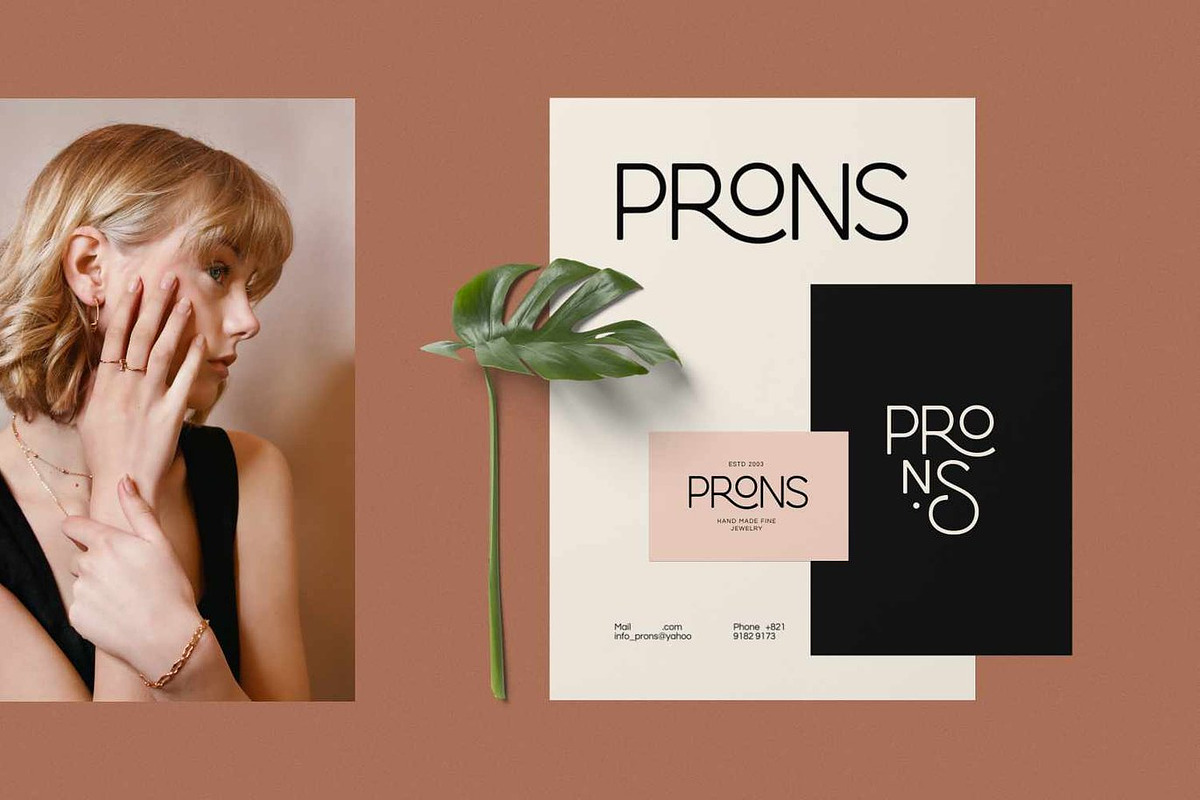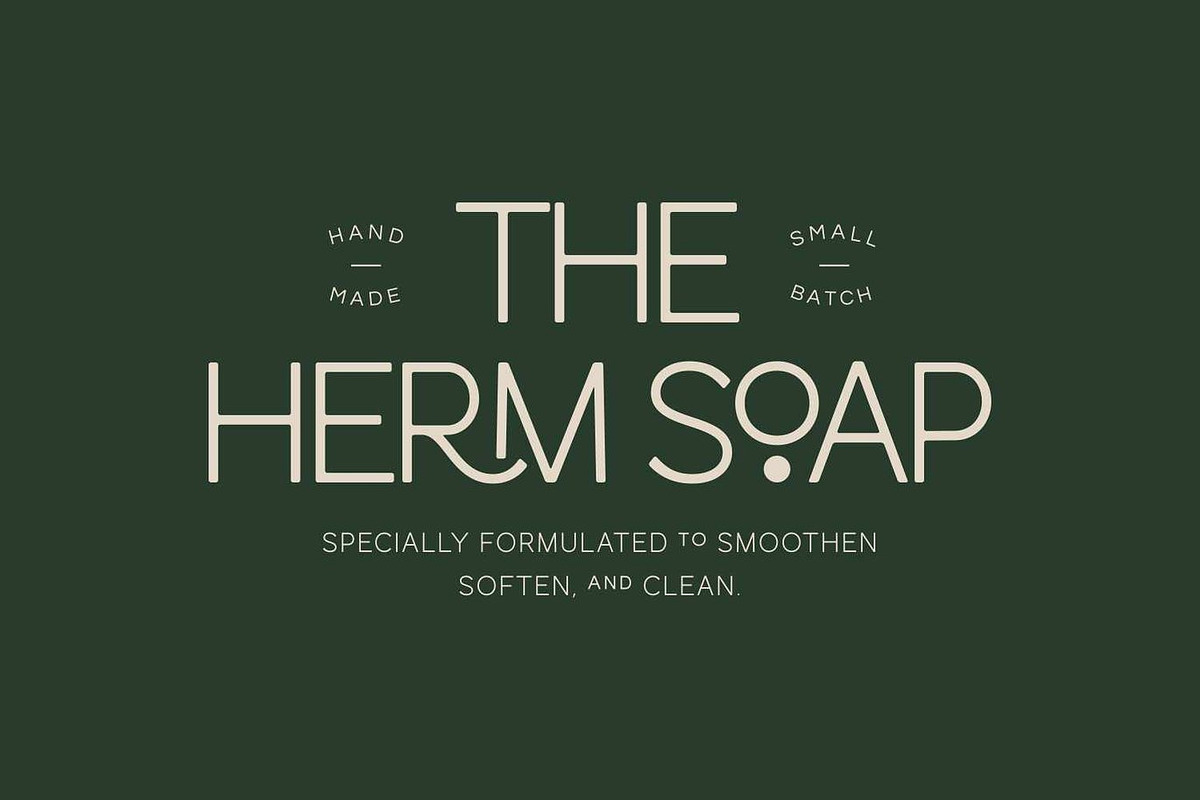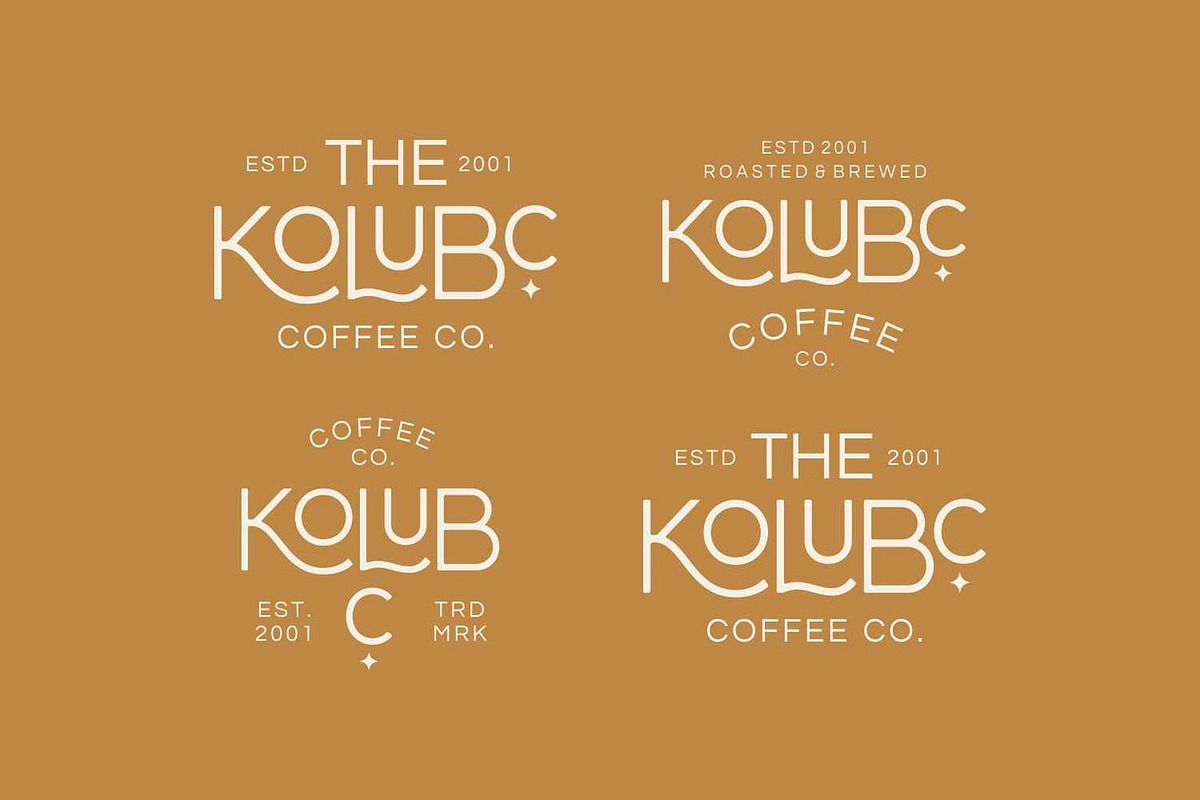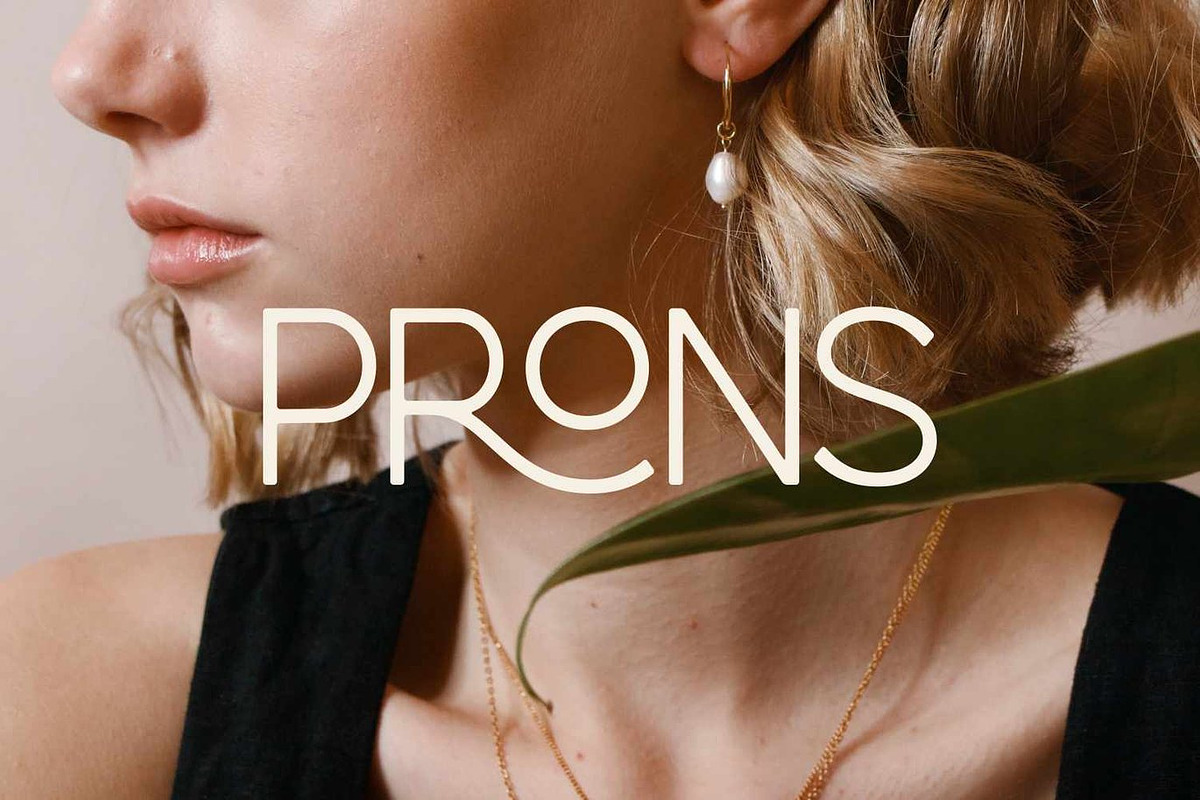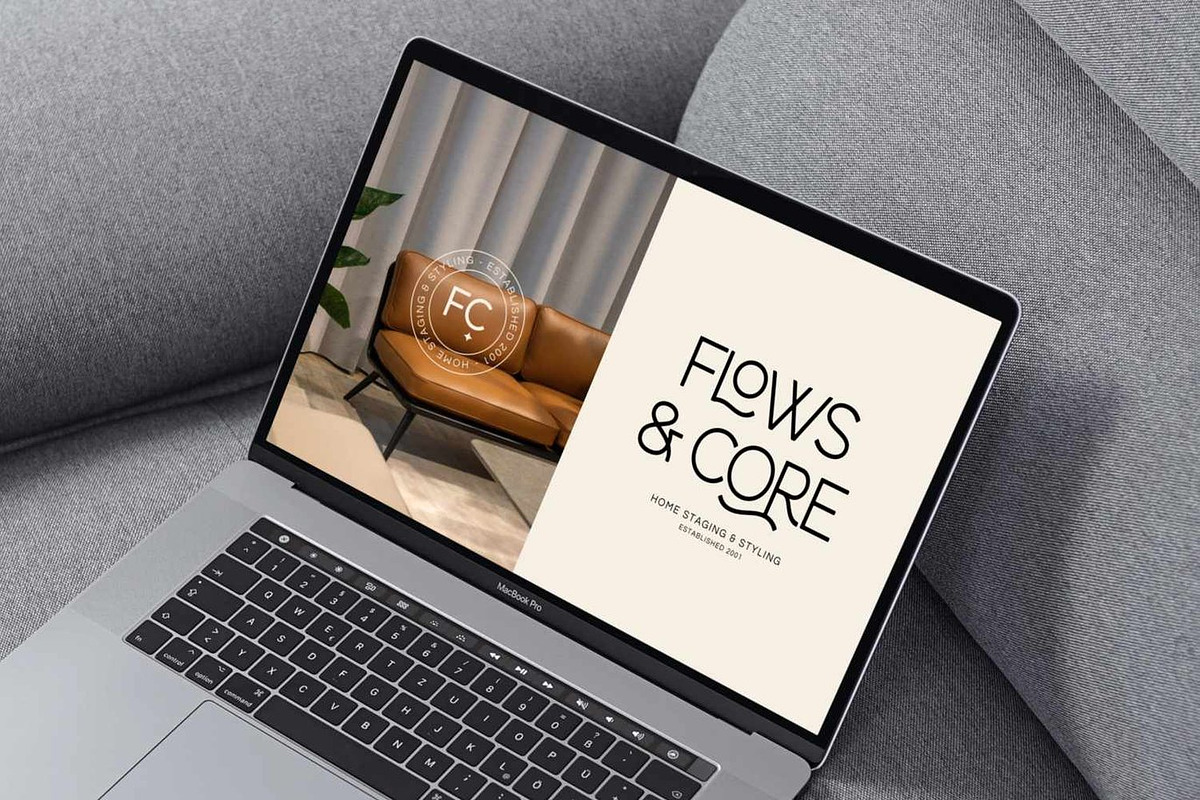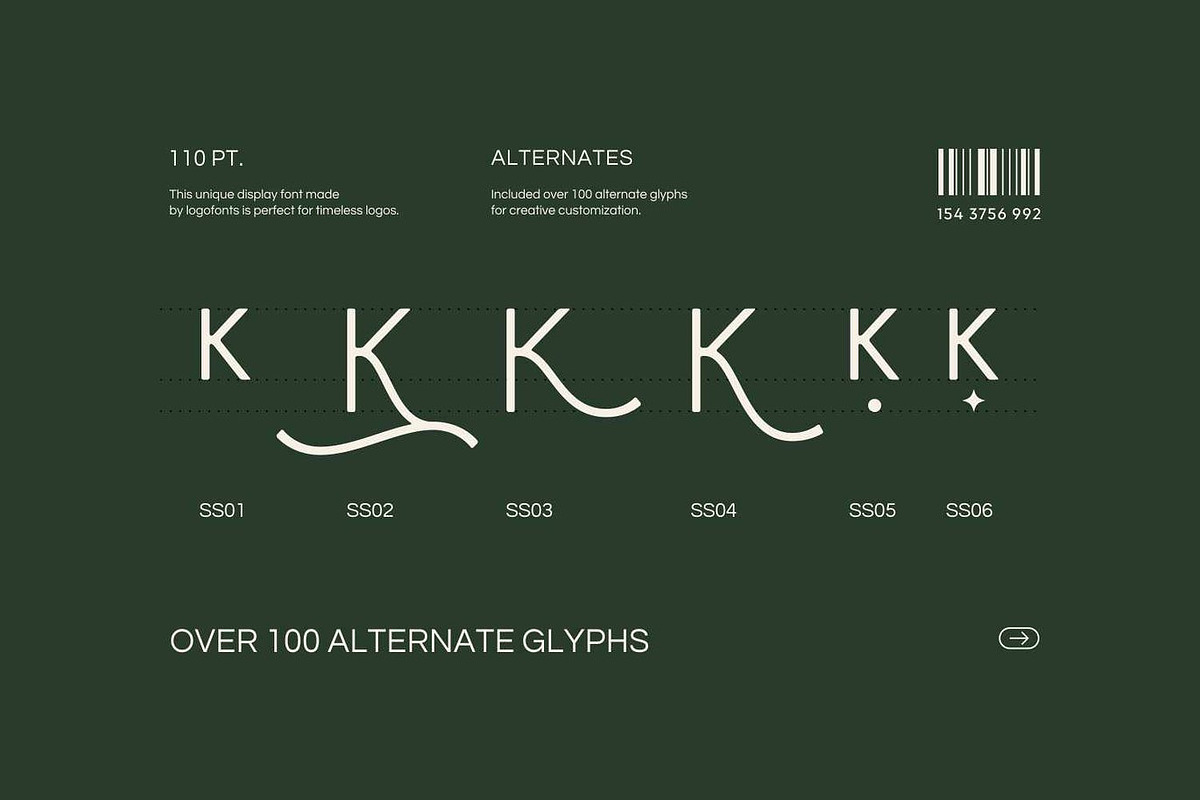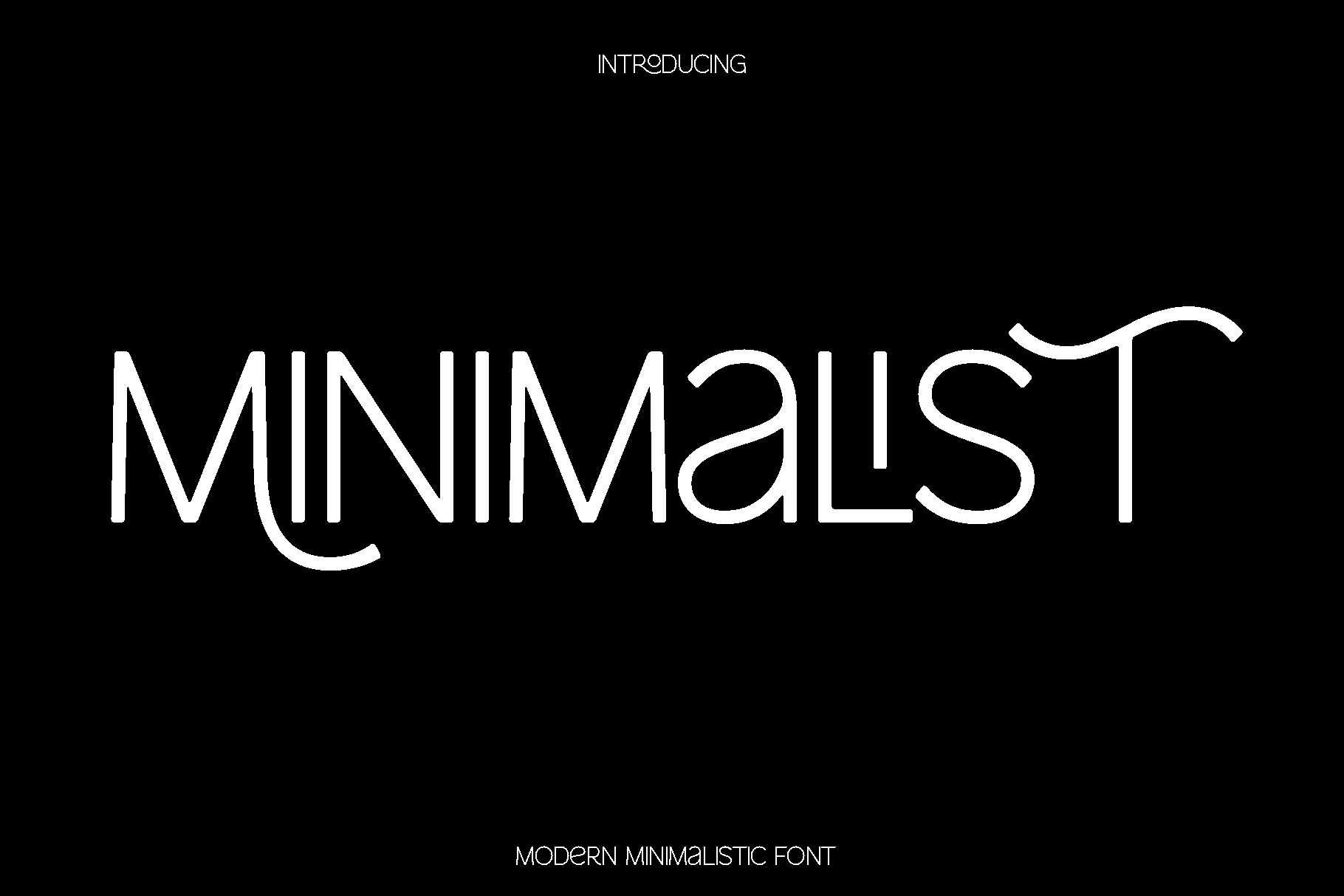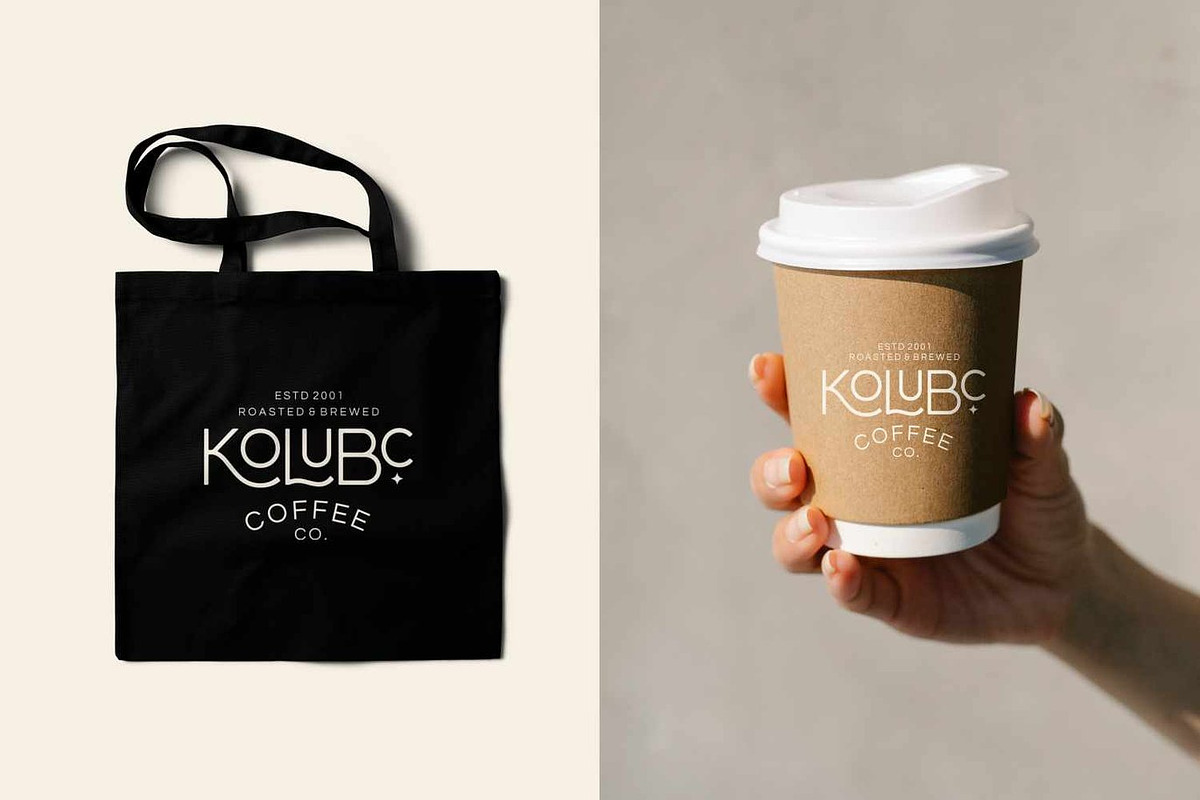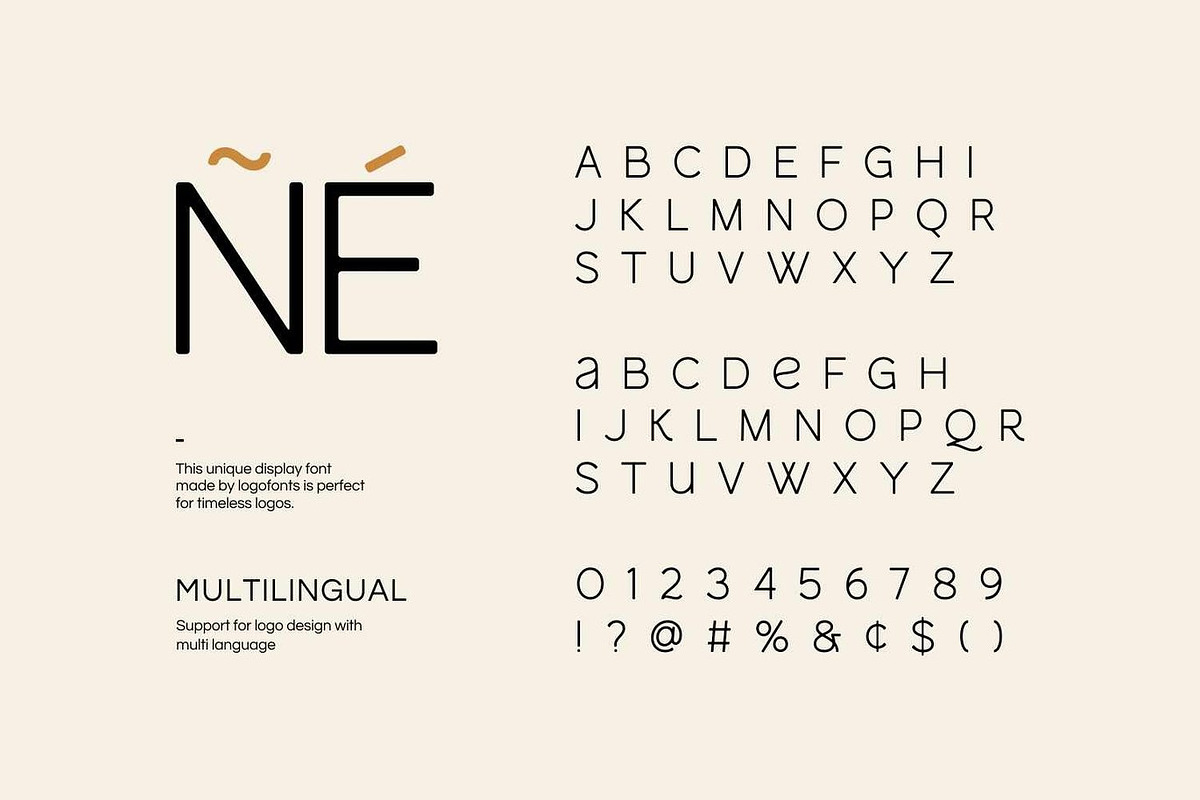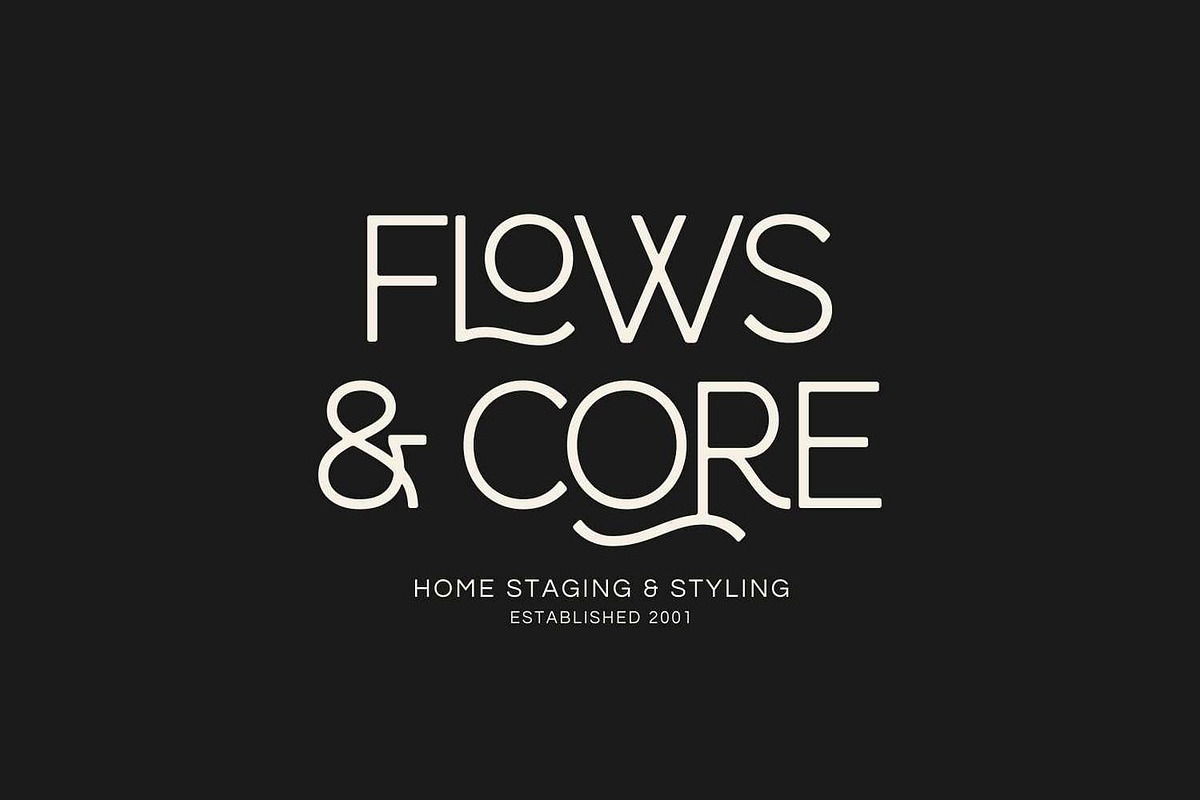
Minimalist - Modern Font
Minimalist is a modern sans serif typeface that embodies clean precision and effortless sophistication. Built around essential geometric principles and stripped of unnecessary ornamentation, Minimalist delivers maximum clarity with contemporary elegance. Straight lines, balanced proportions, and open counters create exceptional legibility across all sizes while maintaining a refined, uncluttered aesthetic that feels both timeless and fresh. This font was crafted for designers who value restraint, directness, and visual harmony in their work.
Where Minimalist excels:
Logo design and brand identity: Tech companies, lifestyle brands, consultancies, and contemporary businesses seeking clean wordmarks that convey professionalism and modernity without visual noise.
Digital interfaces and web design: Website headers, app navigation, dashboard typography, and responsive layouts where legibility across devices and screen sizes is paramount.
Editorial applications: Magazine mastheads, article headlines, section dividers, and book titles that benefit from structured hierarchy and modern sophistication.
Packaging and product design: Cosmetics, fashion, consumer electronics, and premium goods where minimal aesthetics communicate quality and intentional design.
Marketing materials: Posters, business cards, social media graphics, and presentation decks where streamlined typography enhances messaging without distraction.
Standout features:
Uppercase and lowercase letterforms with geometric clarity and humanist warmth, ensuring versatility across display and text applications.
Symbols and punctuation designed to match the typeface's minimal philosophy, maintaining visual consistency in complex typographic compositions.
Numerals with lining proportions perfect for data visualization, pricing, timestamps, and editorial numbering with clean alignment.
OpenType features including stylistic alternates that offer nuanced shifts in personality, from corporate neutrality to creative expression, enabling custom brand voices.
Extensive ligature library that resolves awkward letter pair interactions and adds typographic refinement to headlines and logos.
Multilingual support ensuring Minimalist's clean, contemporary voice translates seamlessly across languages, regions, and international brand touchpoints.
Choose Minimalist when your project demands clarity, restraint, and modern professionalism. Perfect for product logos, posters, headlines, web interfaces, magazines, packaging, and stationery, this sans serif delivers essential typography with sophisticated presence and enduring style.